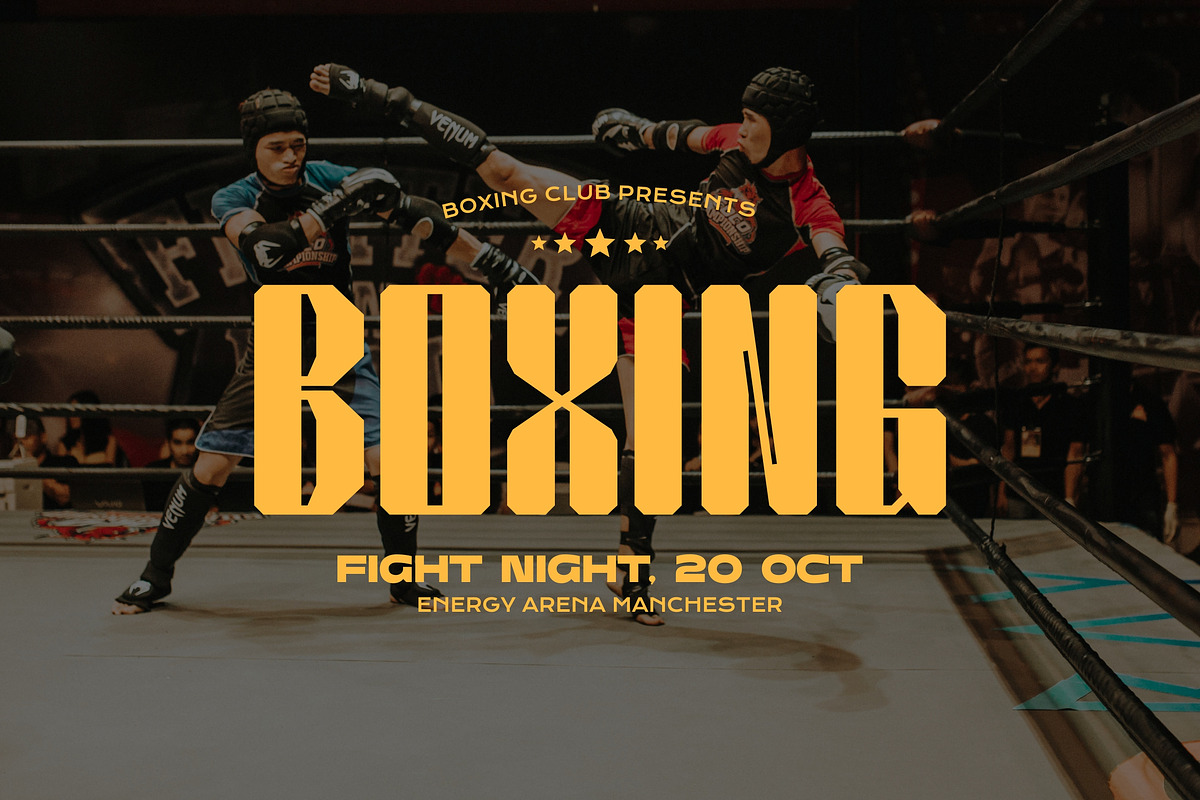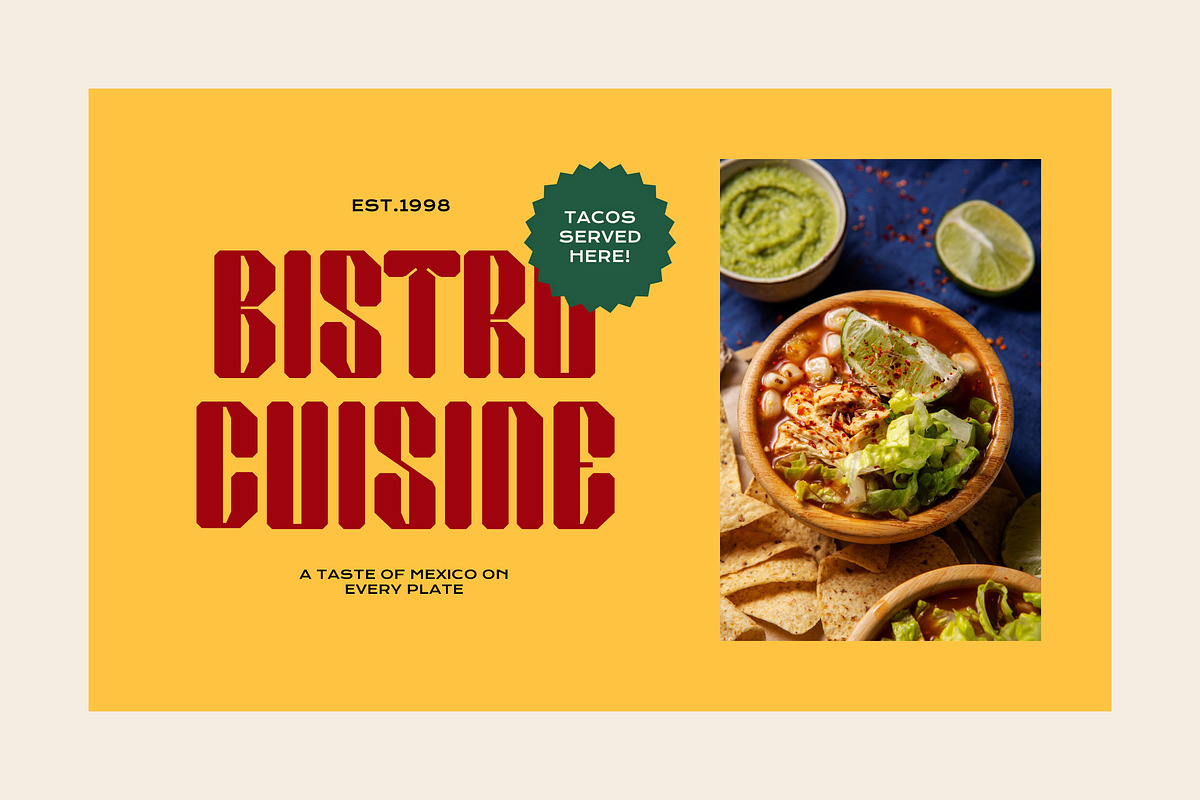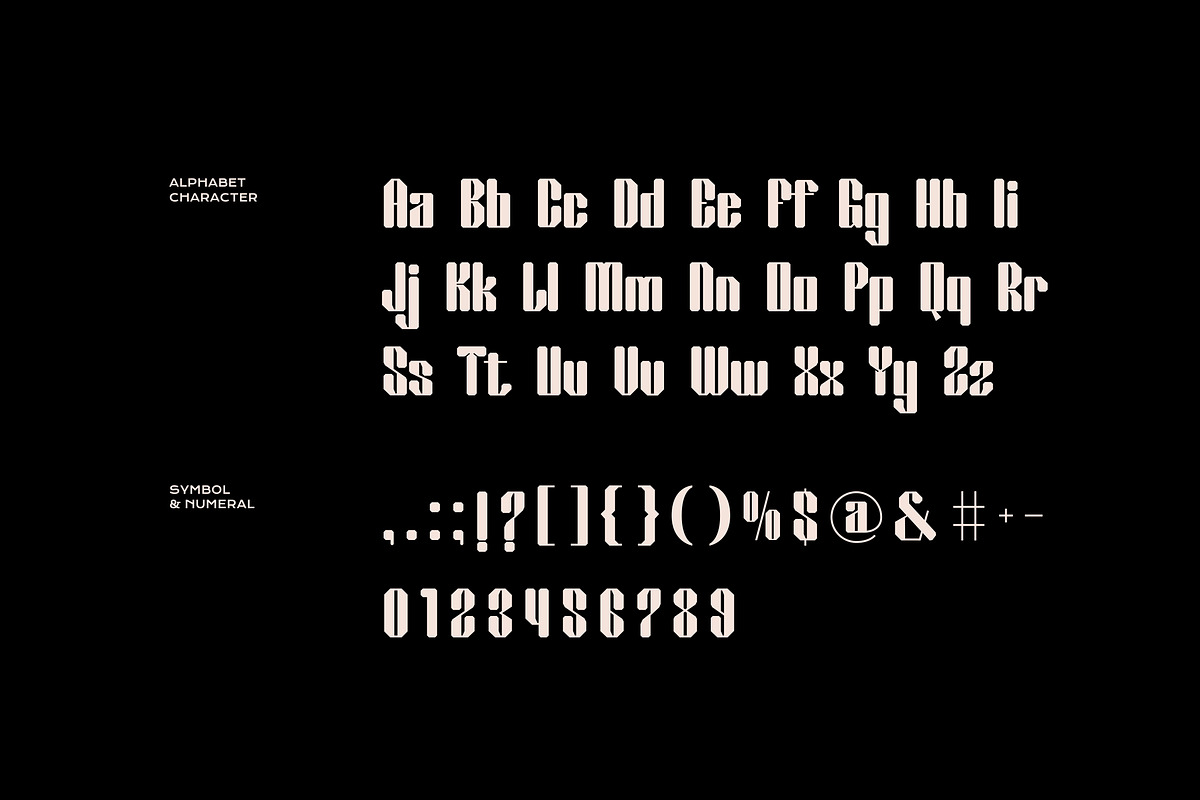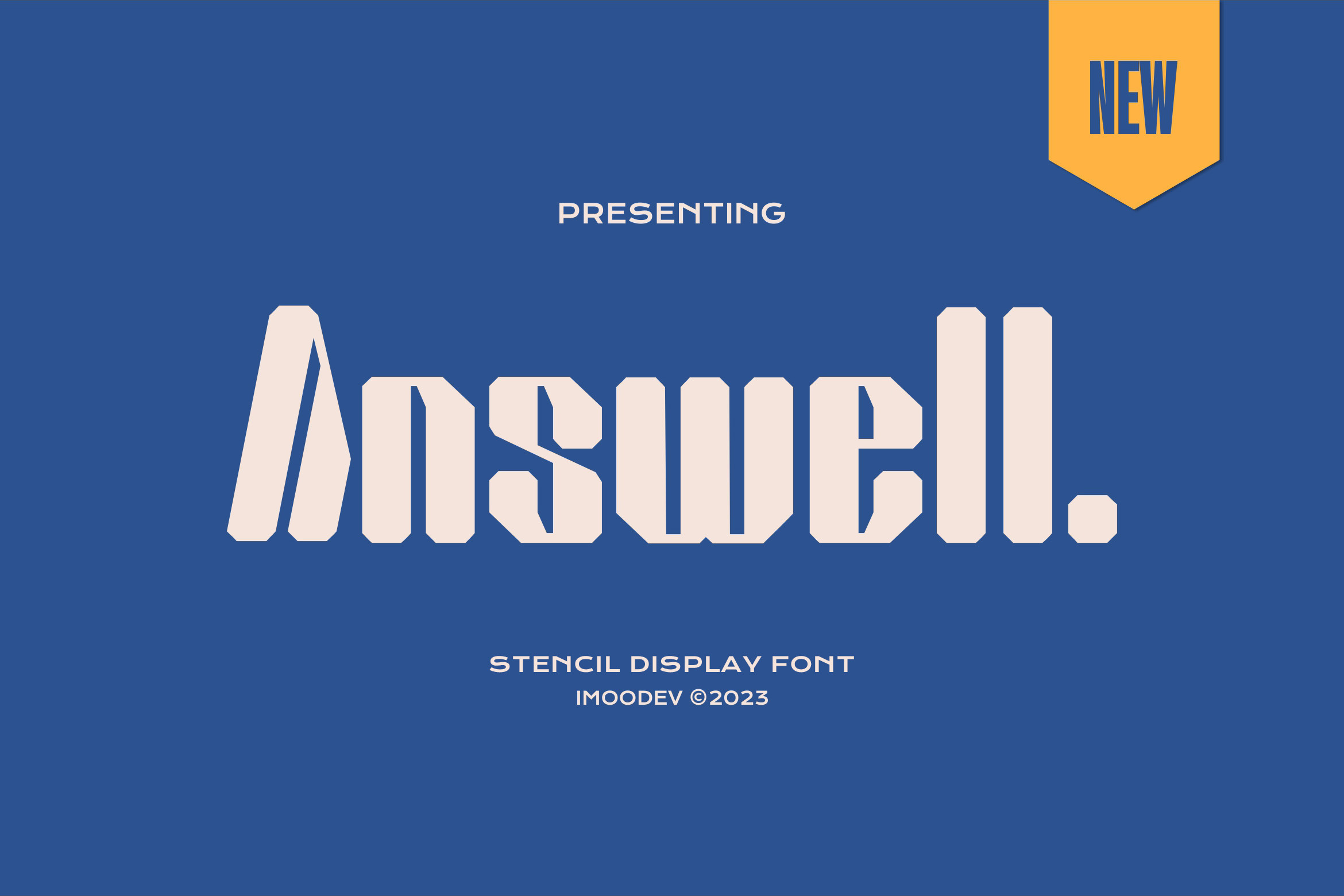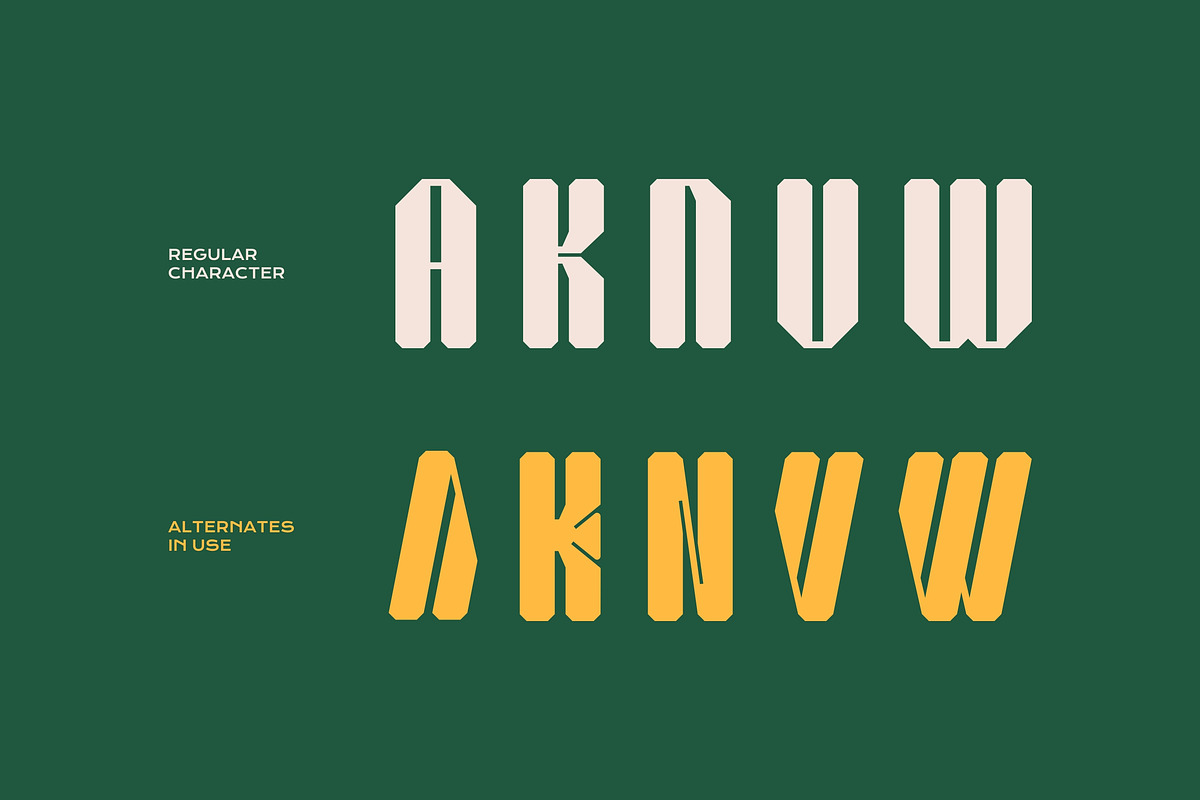
Answell - Bold Stencil Typeface
Introducing Answell, a powerful and modern stencil display font designed to make a strong impact. With its bold, blocky letterforms and distinctive stencil cutouts, Answell exudes confidence and an industrial edge. Its clean, geometric structure is perfect for projects that demand attention and a contemporary, urban feel.
The characters have a generous width, making them ideal for impactful headlines, striking logos, and memorable branding. The uppercase and lowercase feature a consistent design, creating a cohesive and commanding look. Its unique blend of military precision and urban flair ensures your designs stand out with style.
From sports branding and event posters to restaurant menus and apparel design.
- Uppercase and Lowecase Characters.
- PUA Encoded Characters.
- Numerals and Punctuations.
- Alternates and Ligatures.
- Multilingual Support.